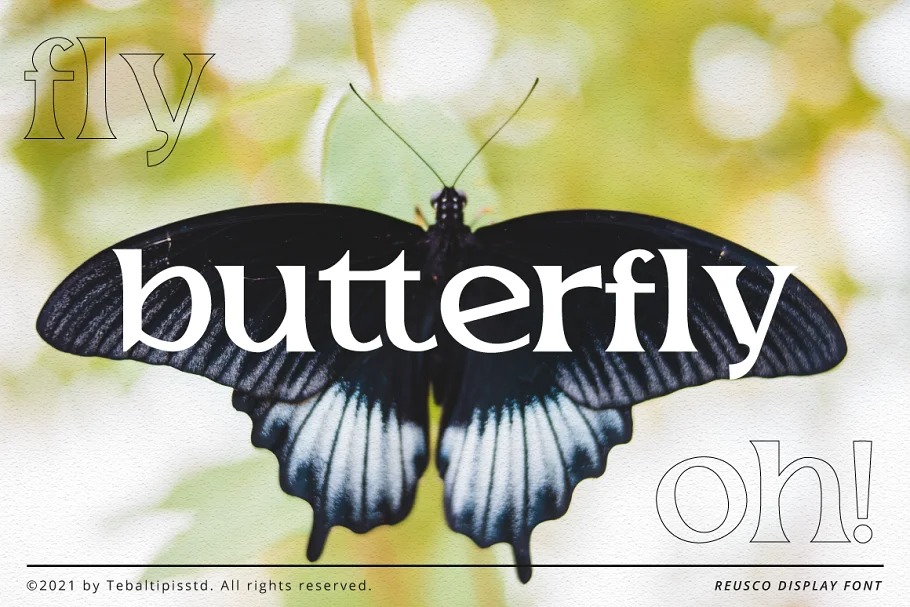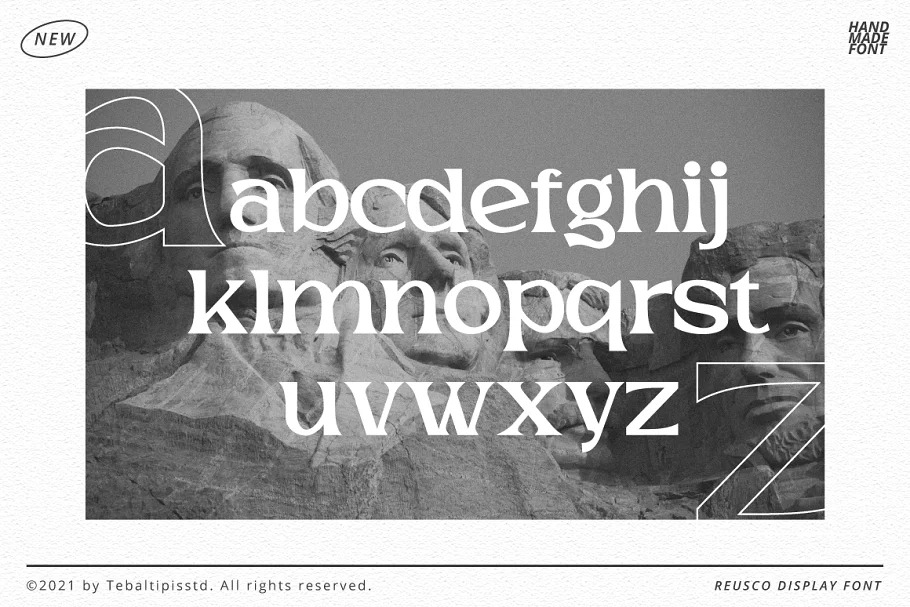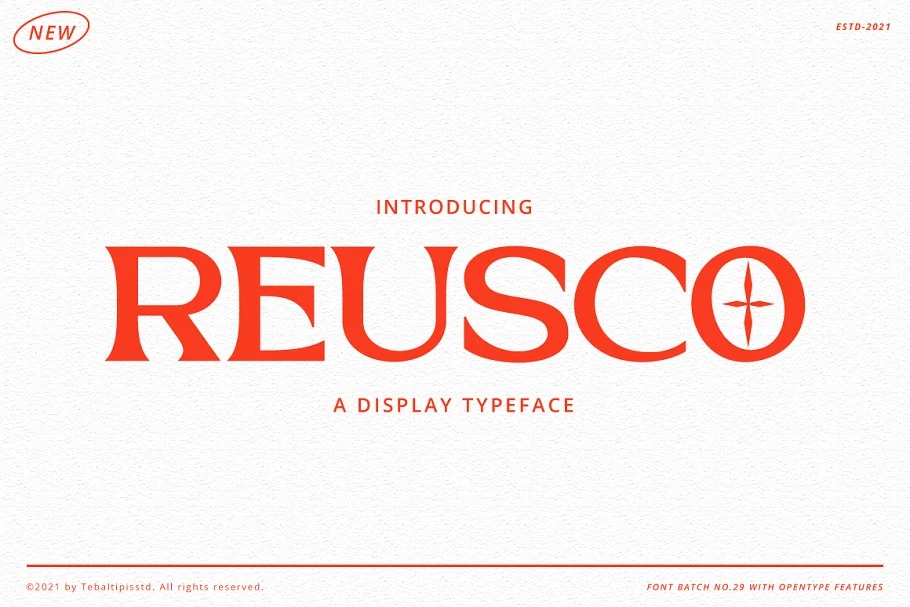
Reusco Font
Reusco Serif Font is a serif typeface created by tebaltipiss with elegant vibes in each character with some alternate. It is perfect for your up coming projects. Such as luxury logo and branding, classy editorial design, woman magazine, cosmetic brand, fashion promotional, art gallery branding, museum, historical of architectural, boutique branding, stationery design, blog design, modern advertising design, card invitation, art quote, home decor, book/cover title, special events and any more.